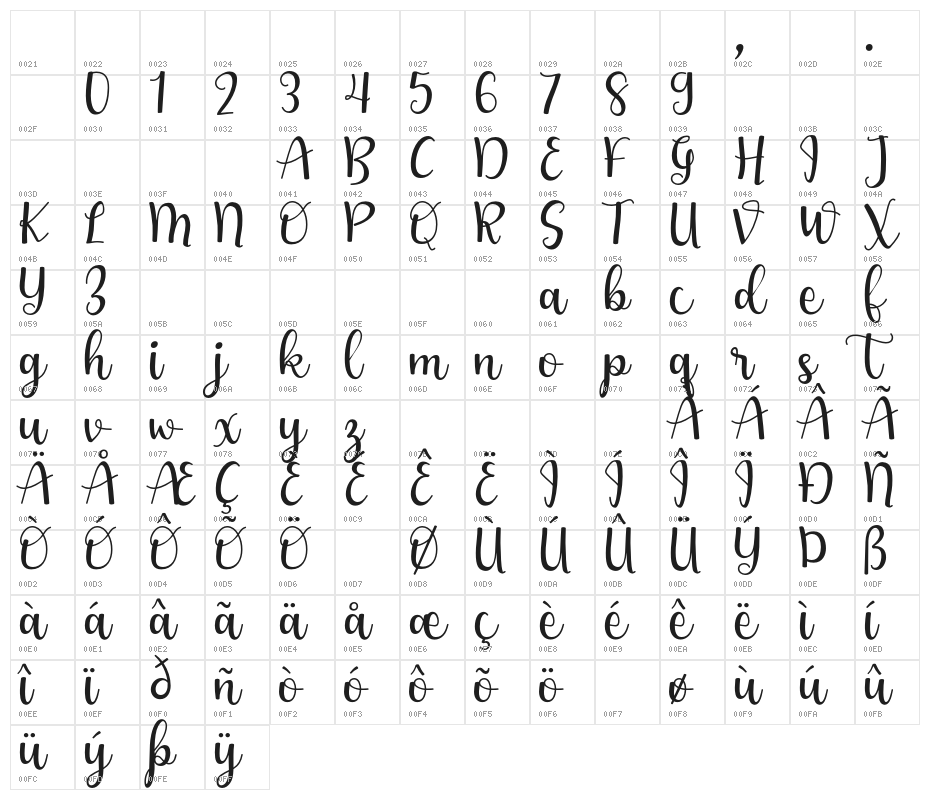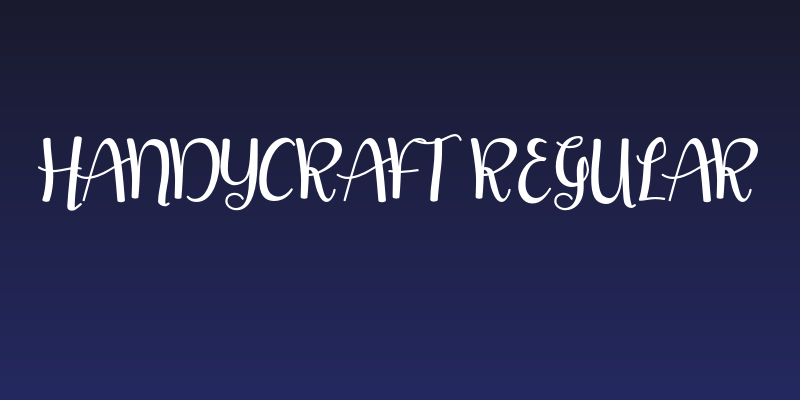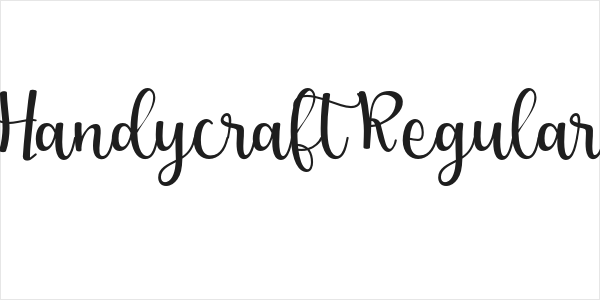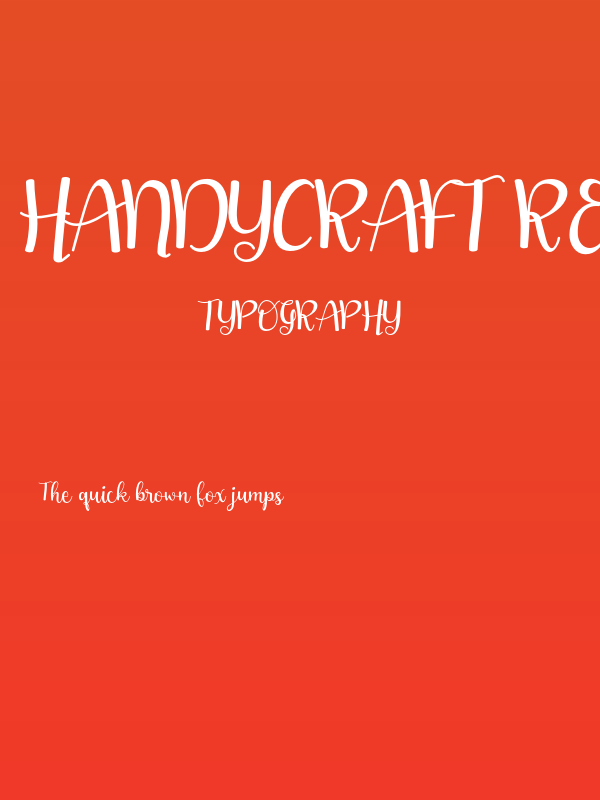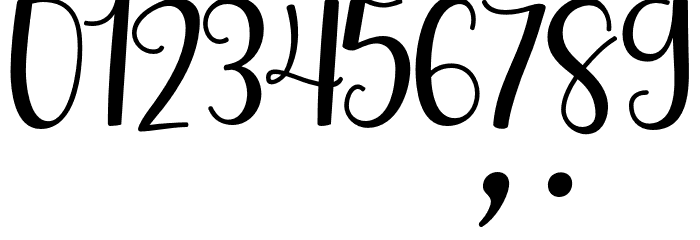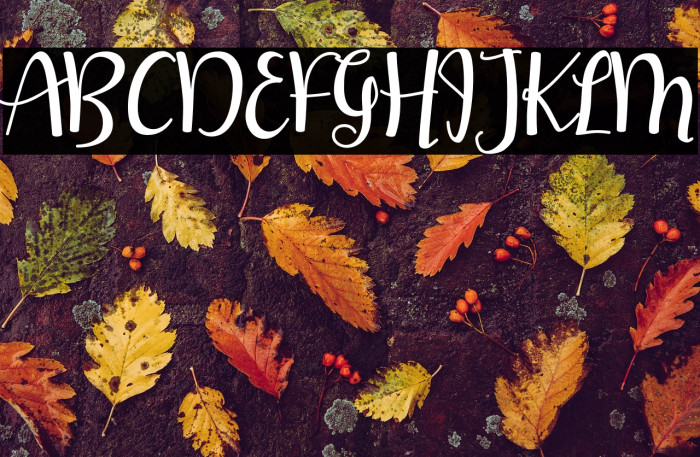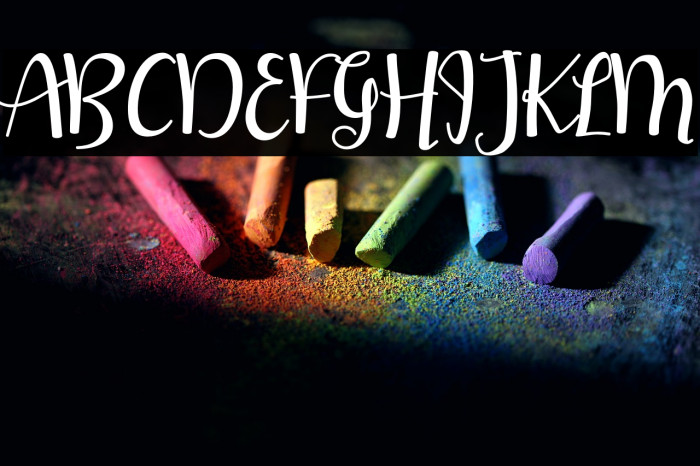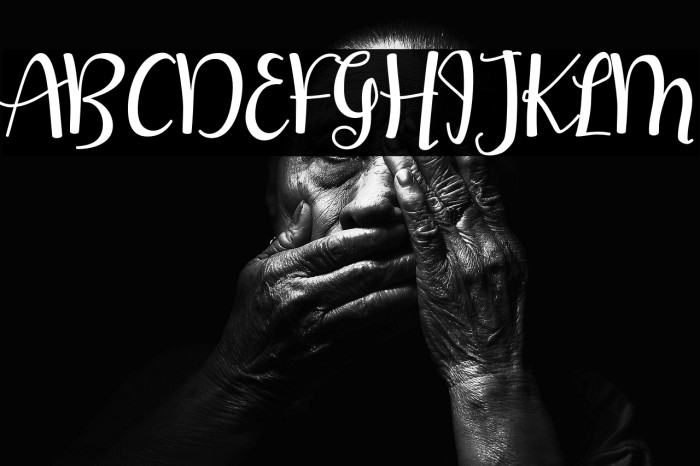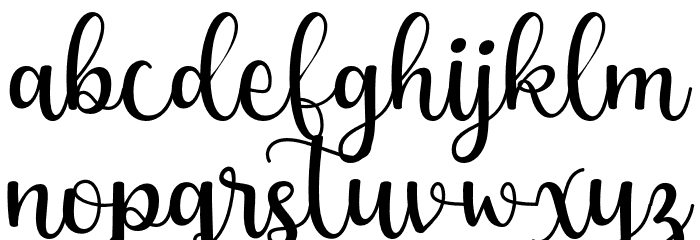
Handycraft-Regular Font
Handycraft-Regular Description
This font features a whimsical and flowing script style that combines elegance with a playful touch. The uppercase letters are characterized by their tall, looping ascenders and descenders, creating a sense of movement and fluidity. The lowercase letters maintain a consistent style, with smooth curves and a slightly informal appearance. The numerals are bold and distinct, with a slight slant that complements the overall script aesthetic. Special characters like the comma and period are simple yet harmonize well with the rest of the font. This font is ideal for projects that require a personal, handcrafted feel, such as invitations, greeting cards, or branding for creative businesses.